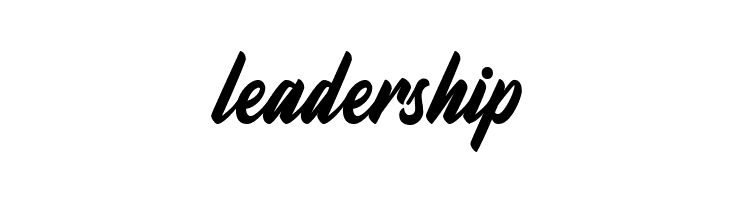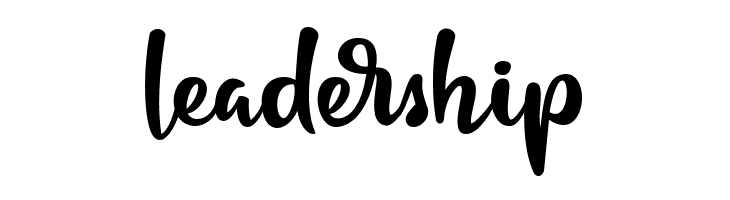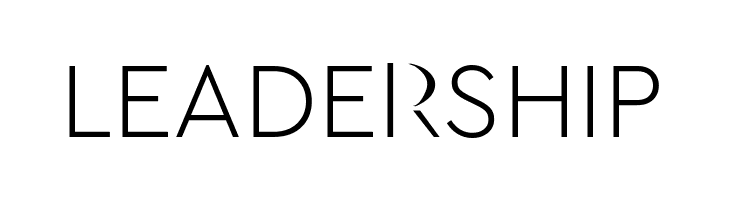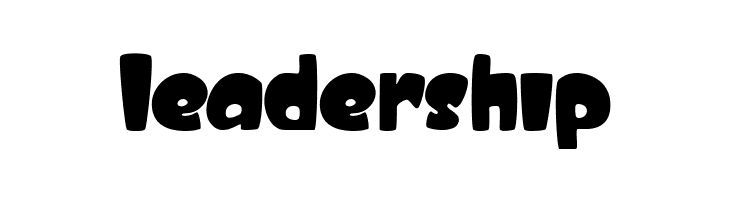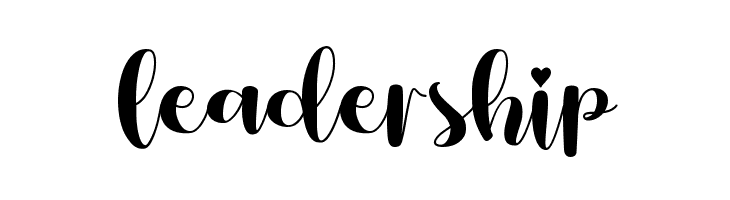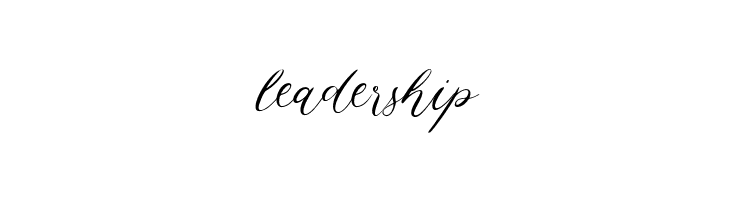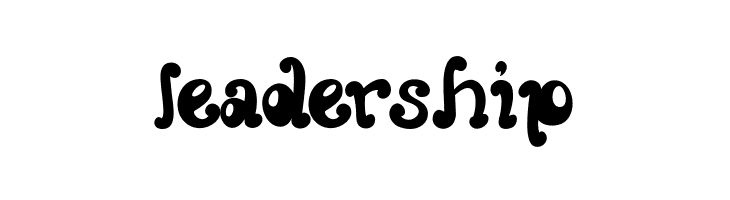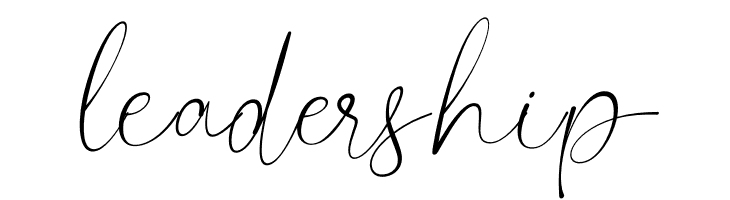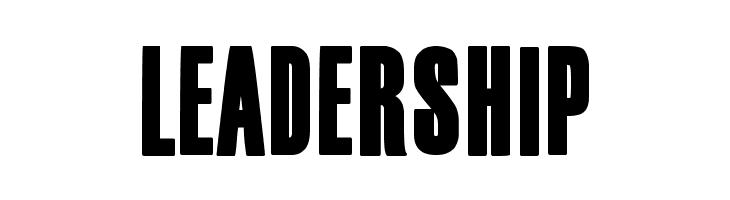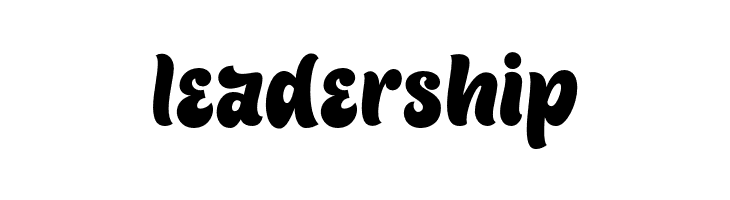
An elegant, flowing font with graceful swash elements.
A bold, playful font with thick, rounded strokes and a hand-drawn feel.
A bold, block-like font with a vintage yet modern appeal, ideal for headlines.
An elegant script font with flowing, interconnected letters and intricate swirls.
An elegant and decorative script font with flowing, cursive letterforms.
A playful and elegant script font with flowing, cursive letters.
A playful, bold font with rounded, exaggerated curves and a whimsical style.
A bold, cursive font with smooth, flowing lines and elegant flourishes.
A playful and elegant script font with dynamic strokes and whimsical swashes.
A minimalist, geometric font with clean lines and a modern aesthetic.
A bold, angular font with a dynamic, forward-leaning design.
A bold, hand-drawn font with jagged edges and a dynamic style.
A cursive, handwritten font with elegant loops and dynamic strokes.
An elegant, flowing script font with delicate strokes and graceful curves.
A bold, flame-inspired font with sharp, angular strokes and dynamic energy.
A dynamic, italic font with swirling, firework-like embellishments.
A decorative font with intricate, swirling lines resembling fireworks.
A dynamic and elegant script font with flowing, cursive letterforms.
A modern, geometric font with clean lines and balanced proportions.
A bold, dynamic script font with fluid, connected letterforms.
A bold, italicized handwritten font with fluid, connected strokes.
A playful and elegant script font with a handwritten feel.
A whimsical and elegant script font with playful loops and flourishes.
A bold, playful font with a vintage flair and wavy character design.
A bold, italic font with high contrast and a blend of script and serif elements.
A hollow, decorative font with a playful and artistic style.
A decorative hollow font with an inverse style and artistic flair.
A decorative font with flowing curves and high contrast, ideal for striking designs.
A whimsical and elegant font with flowing strokes and a playful style.
A bold, playful font with thick, rounded characters and a whimsical style.
A bold, brush-style font with a dynamic and artistic appearance.
A bold, flowing script font with a playful and energetic style.
A bold, energetic script font with smooth, flowing strokes.
A graceful, handwritten script font with elegant, flowing strokes.
A dynamic and elegant script font with flowing curves and bold strokes.